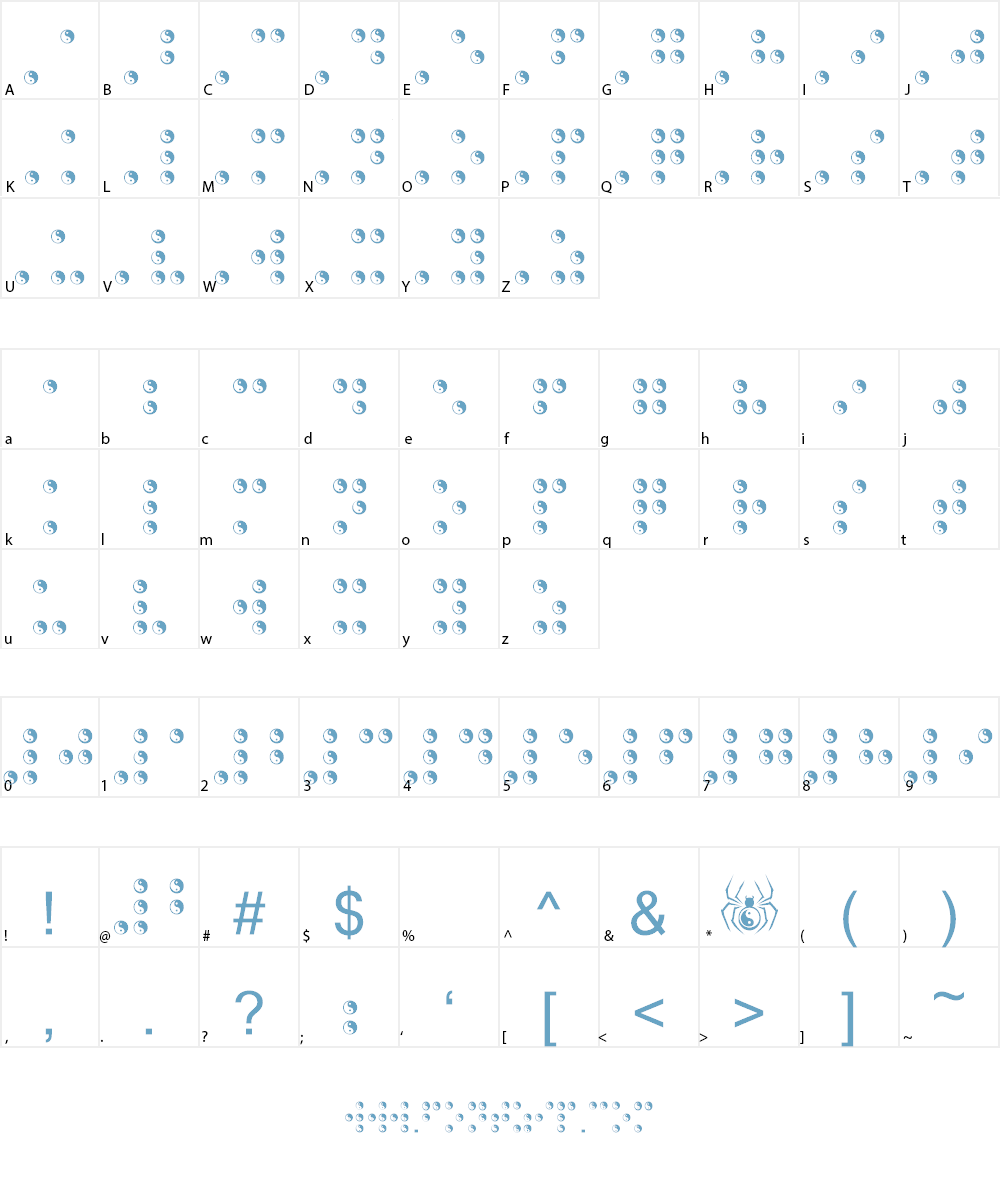
My daughter has been learning Braille at primary school and we had loads of fun using Aquabeads to create the raised Braille dots. She then asked if I would create an alternative Braille Typeface she loves the Yin Yang (Taijitu) symbol.